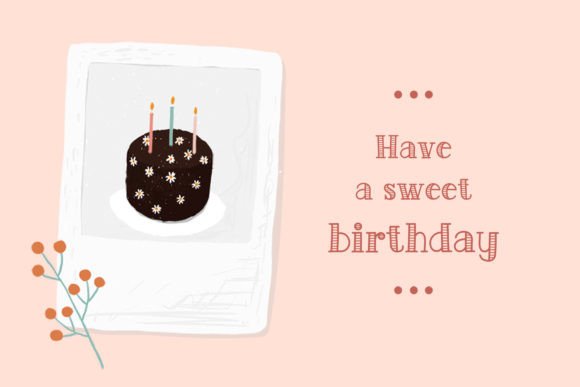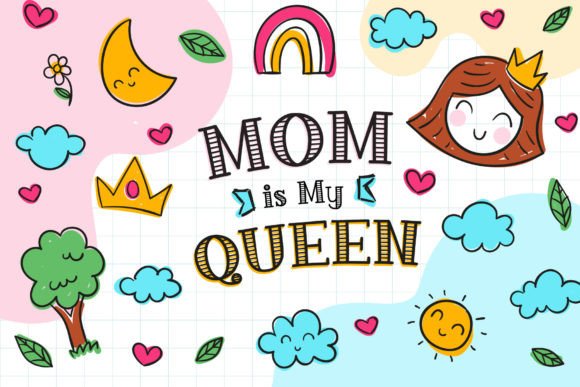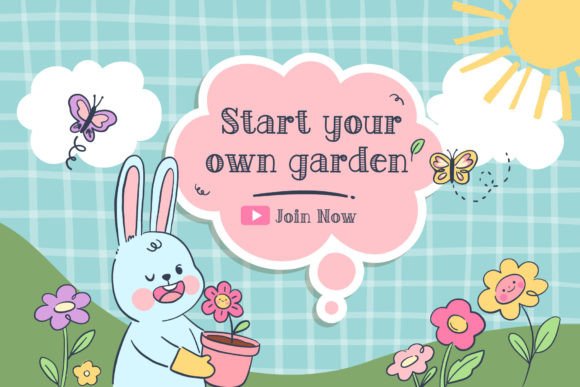
Introduction to Fox Cricket Font
Have you ever stumbled upon a design resource that just makes your creative project shine? For me, that moment came when I discovered the Fox Cricket Font. Its cute and fun Display font immediately caught my attention, and I couldn’t wait to explore its endless possibilities. Whether it’s a children’s theme, a menu event, cards, or even a Halloween theme, this beautiful display font can be used very well.
Key Features of Fox Cricket Font
- High-quality design resource suitable for creative projects requiring a modern and sporty feel.
- Features a transparent background, making it easy to use in various design applications.
- Unique characteristics include a bold and dynamic feel, making it perfect for sports-related designs and branding.
Honest Review: Fox Cricket Font
I recently stumbled upon the Fox Cricket Font and I must say, it’s been a great addition to my design resource library. I love how versatile it is – perfect for any creative project that requires a high-quality, modern look.
Here are some of the things that work well for me:
- ✨ Unique and modern design: The Fox Cricket Font has a distinctive look that sets it apart from other fonts. Its clean lines and geometric shapes make it perfect for creative projects that require a touch of sophistication.
- ✨ Transparent background: The font comes with a transparent background, making it easy to layer over other design elements.
Of course, no font is perfect, and here are some limitations I’ve noticed:
- ⚠️ Limited font sizes: While the Fox Cricket Font looks great at larger sizes, it can become a bit pixelated at smaller sizes.
- ⚠️ Limited language support: The font is currently only available in a few languages, which may limit its use in certain projects.
Overall, I’m really impressed with the Fox Cricket Font. Its unique design and high quality make it an excellent choice for any creative project. While it may have some limitations, I think it’s definitely worth checking out.
How to Use Fox Cricket Font
Getting the Most Out of Fox Cricket Font
For optimal results, use the Fox Cricket Font in conjunction with a high-quality image or design element. Experiment with different font sizes and styles to achieve the desired effect.
The Fox Cricket Font is suitable for a variety of creative projects, including sports-themed designs, event invitations, and promotional materials.